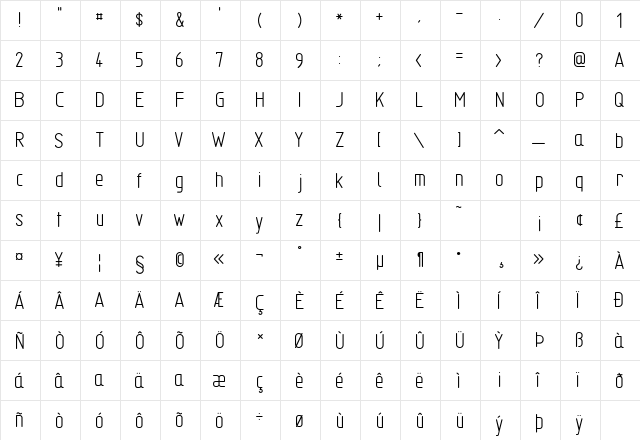
TGL 31034-1 Regular Font Preview
TGL 31034-1 Regular
TGL 31034-1 Regular Font Details
| Foundry | Peter Wiegel |
| Designer | Peter Wiegel |
Design Context for TGL 31034-1 Typeface
TGL 31034-1 offers clean, dependable letterforms without strong stylistic allegiance, making it a practical choice for designers who need flexibility.